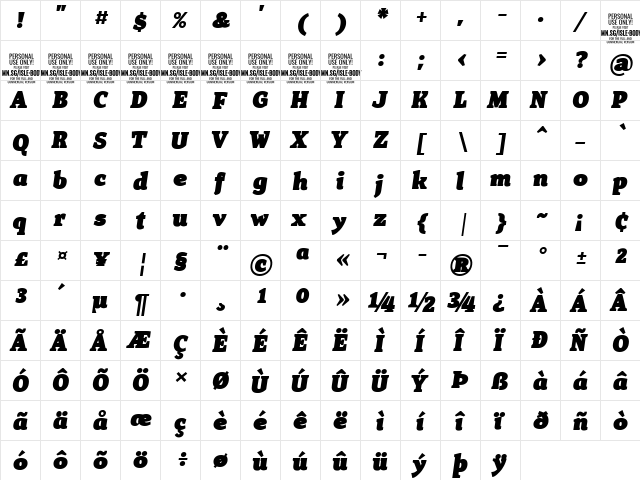
Isle Body PERSONAL USE Black Italic
Design Context for Isle Body PERSONAL USE Typeface
Isle Body PERSONAL USE takes a measured approach to typography — its balanced proportions and neutral character make it a reliable workhorse for both digital and print work. The dynamic lean of this cut emphasises speed and emphasis in any layout.
Pro Tip: Try Isle Body PERSONAL USE for annotation and caption copy alongside an upright companion — the contrast in angle creates a dynamic but ordered typographic system.